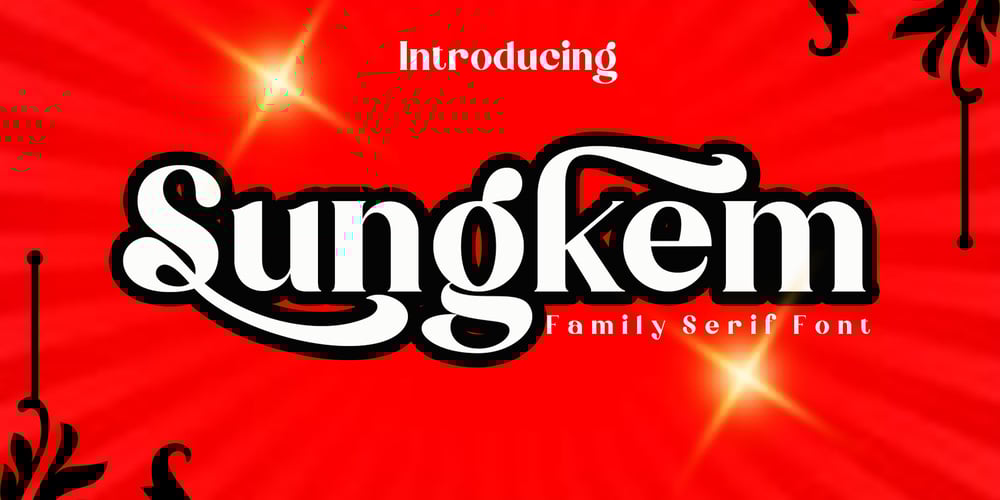
Sungkem
Sungkem font
Sungkem Font Family was designed by Canden Meutuah and published by Canden Meutuah. Sungkem contains 9 styles and family package options. This is a geometric sans-serif family typeface available in nine thicknesses. This is a simple and elegant sans font family, this family font is very suitable especially for headlines, titles, brands, posters, packaging, titles, logos, and so on